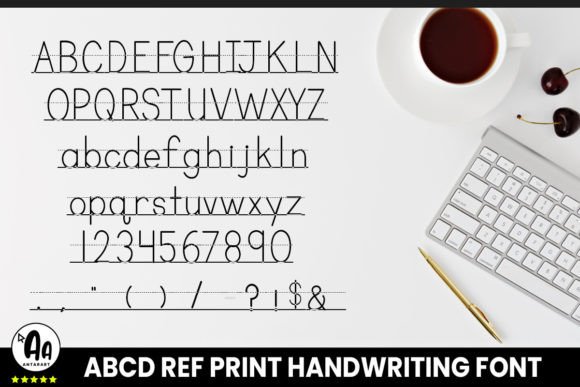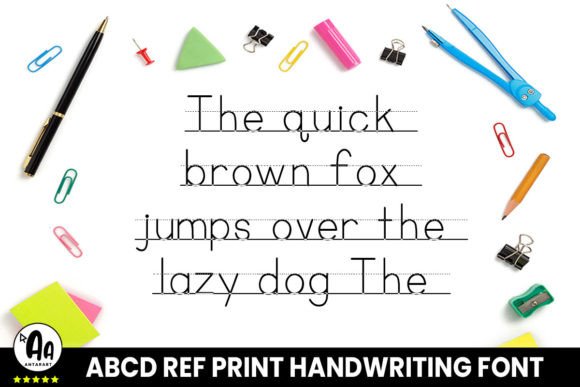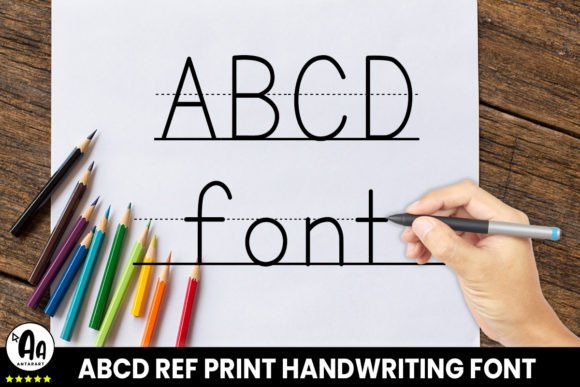
Unlocking Creative Learning with Abcd Ref Lined1 Font
Are you a designer, teacher, or parent looking for innovative ways to make learning the alphabet a fun and interactive experience for children? Look no further than the Abcd Ref Lined1 font, part of the ABCD Ref font family. This practical display font, inspired by the D’Nealian Method used in US schools, is a game-changer for creating engaging worksheets and educational materials.
The D’Nealian Method: A Brief Overview
The D’Nealian Method is a handwriting approach developed to help students learn to write in a flowing, connected script. It emphasizes proper letter formation, size, and spacing, making it easier for children to read and write. The Abcd Ref Lined1 font takes its cues from this method, providing a clear and consistent visual guide for learners.
Features of Abcd Ref Lined1 Font
- Based on the D’Nealian Method: Ensures consistency and accuracy in letter formation.
- Practical Display Font: Perfect for creating eye-catching worksheets and educational materials.
- Versatile: Ideal for various learning activities, including alphabet lessons, handwriting practice, and reading exercises.
- Interactive Learning: Facilitates an engaging and enjoyable learning experience for children.
Applications in Education
The Abcd Ref Lined1 font is incredibly versatile, making it suitable for a wide range of educational applications:
- Alphabet Learning: Introduce children to the print alphabet with engaging worksheets.
- Handwriting Practice: Help students improve their handwriting skills with guided practice sheets.
- Reading Exercises: Create interactive reading materials that make learning to read fun.
- Special Needs Education: Adapt worksheets for children with special needs, ensuring inclusive learning.
The Abcd Ref Lined1 font is a valuable resource for anyone involved in creating educational materials, especially those focused on teaching the alphabet and handwriting skills. Its basis in the D’Nealian Method ensures a high level of instructional quality, making it an excellent choice for both traditional and innovative learning environments. By incorporating this font into your toolkit, you’ll be well on your way to producing engaging, effective, and enjoyable learning materials for children.